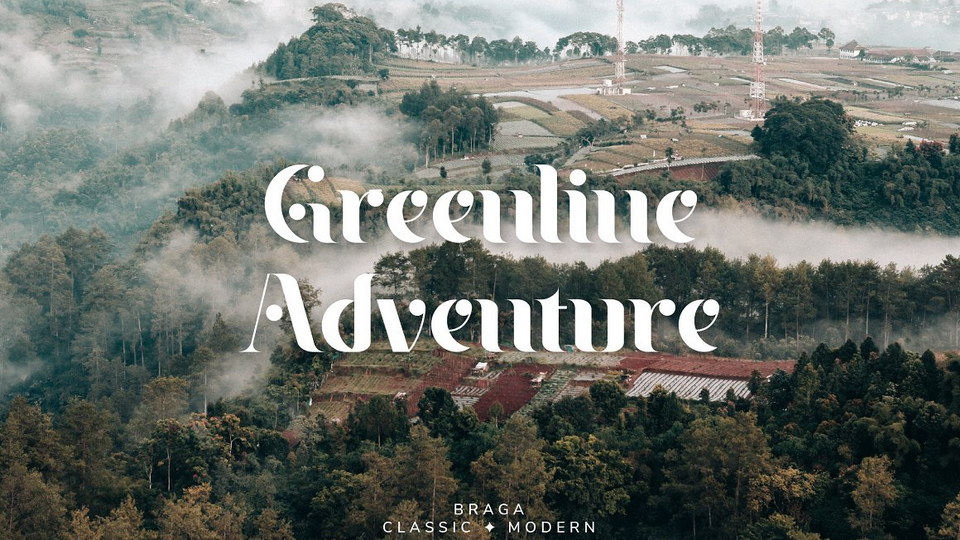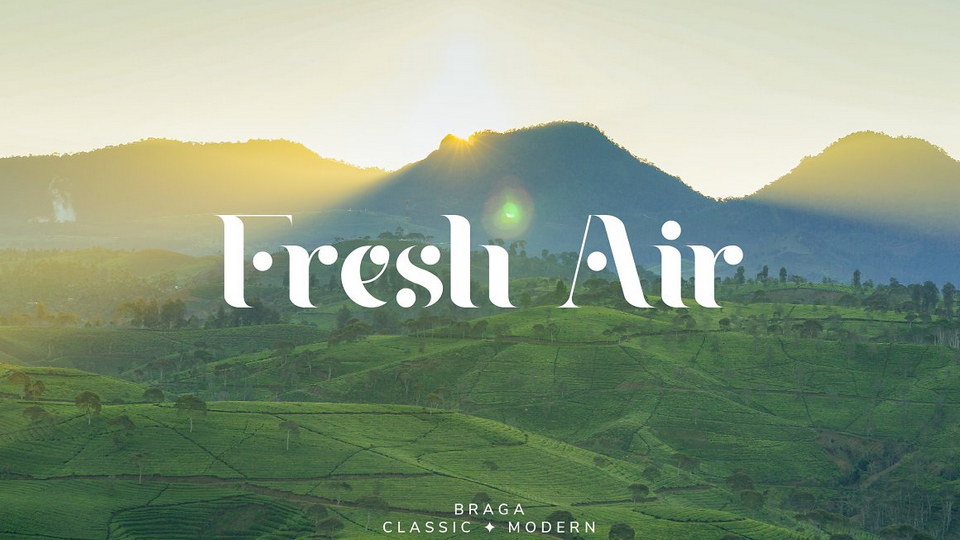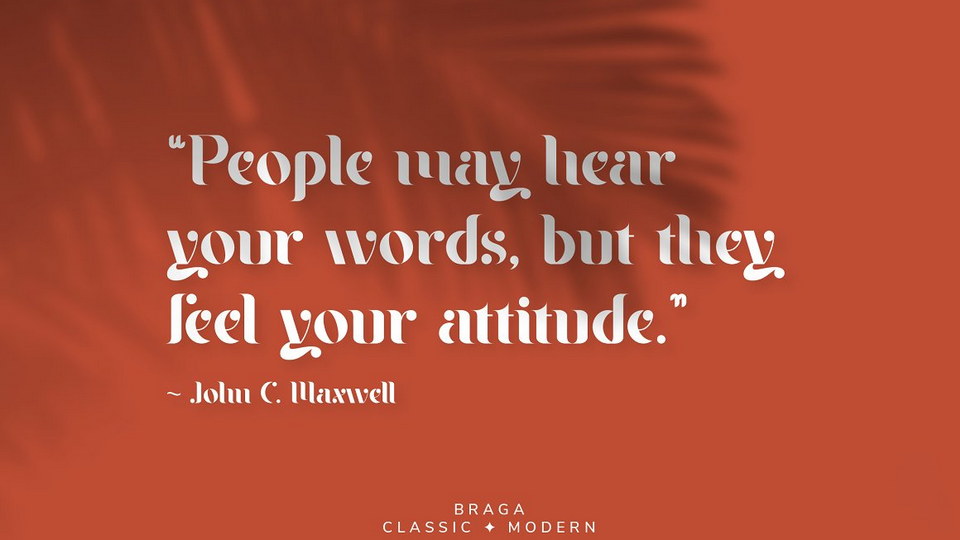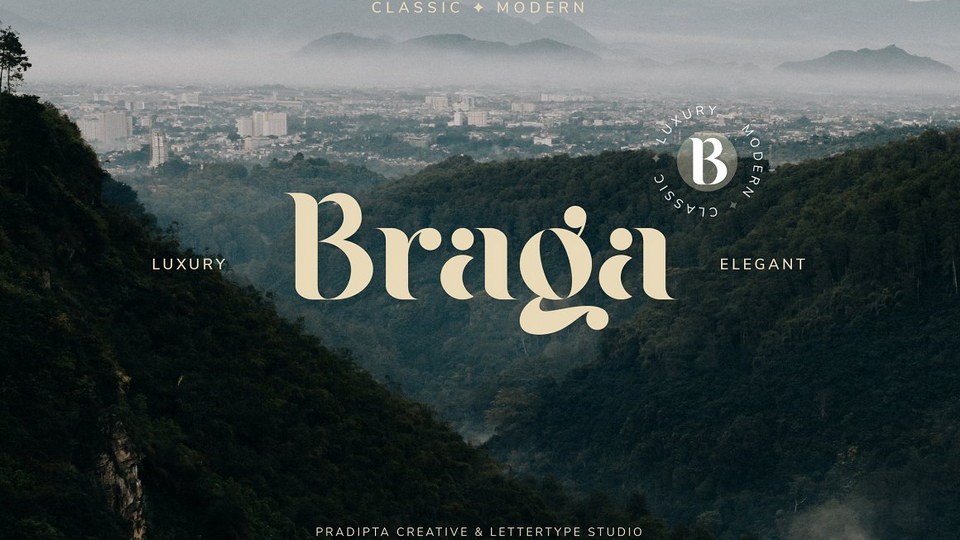
Braga Font
Braga is a serif font with modern yet classic and vintage style. This font will be perfect for logo design, branding, clothing, signage, posters, wedding invitations and so much more.
The goal in creating Braga font was to create a mix of serif fonts with modern and classic styles, which will help your project to be more perfect and beautiful.
Designed by: Lettertype Studio